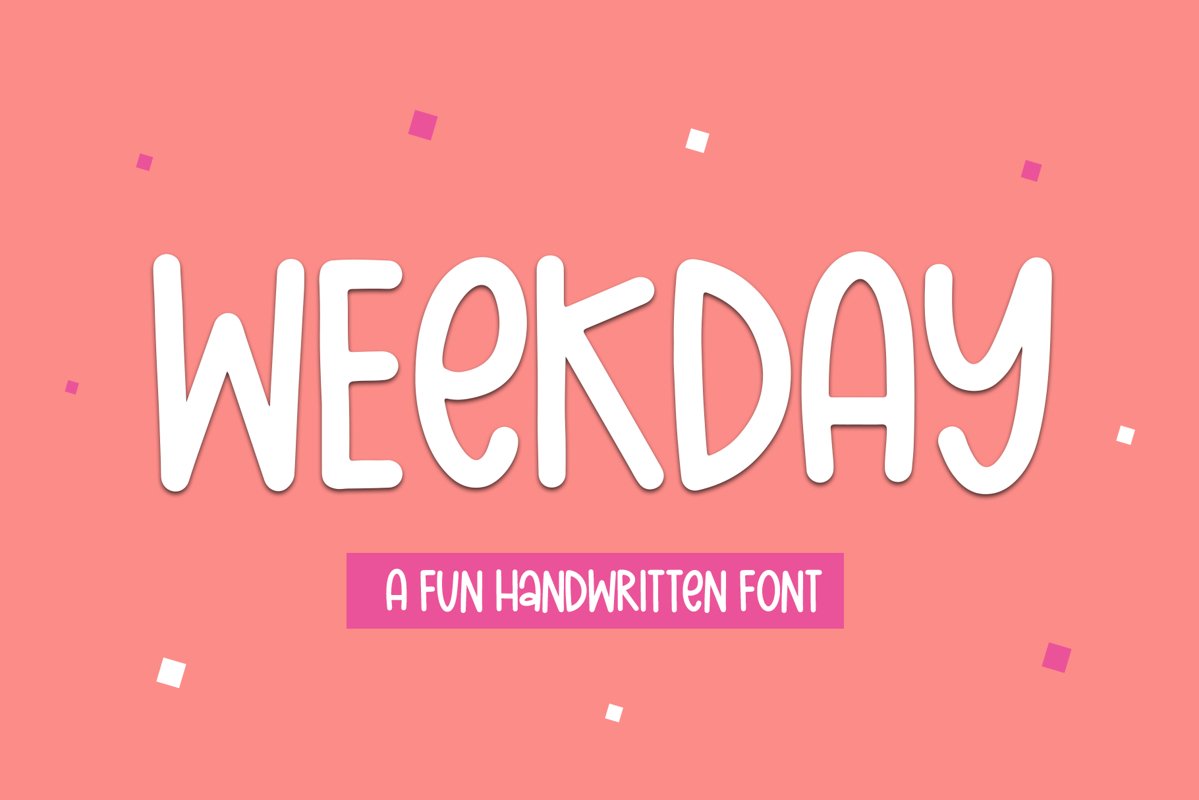
Weekday is a fun caps font!
This font is perfect for quotes, shirt designs, websites, branding, children's designs, svg designs, blogs, logos, invitations and more!
Weekday